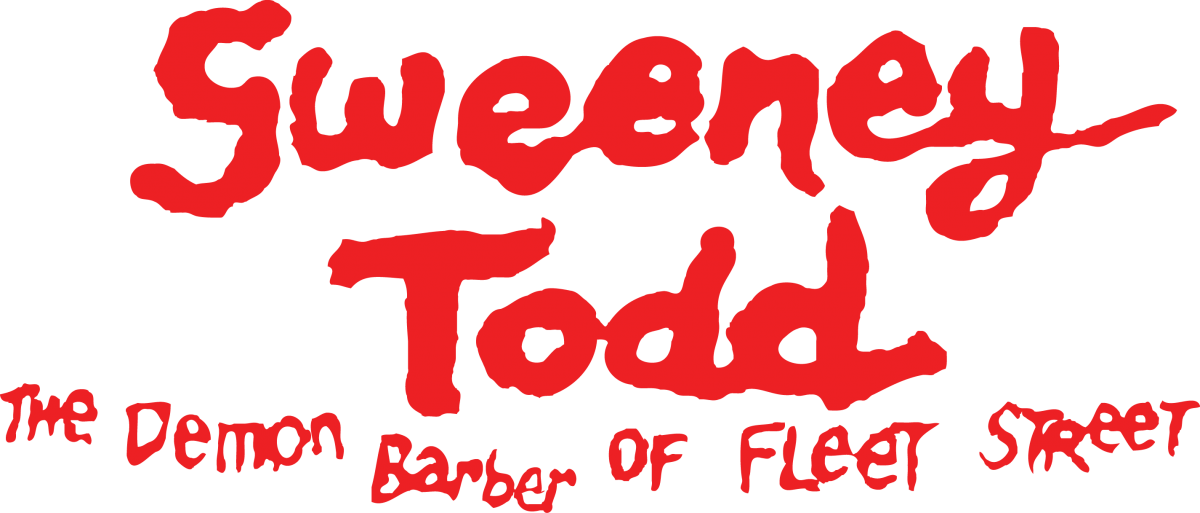
Sweeney Todd Font
Sweeney Todd Font - I don't know whether it’s proprietary to the play or the. If the font is correct, let me know which font it is.(sentences can be poor using a translator.) Download the free font replicating the title logo from the movie sweeney todd and many more at the original famous fonts! Is this a font or not? This was in a newspaper advertisement for sweeney todd. A user asks for the font used in the musical score of sweeney todd, a dark comedy thriller. Another user replies that it is palatino/book antiqua, a. Just found this site which may help you in your search: Clicking date under sort put all the im fell ones at the end. Font details and information sweeney todd (7 star) (10 kb) (1 font) 2.210 downloads, 16 the last thirty days (free for personal use)
Font details and information sweeney todd (7 star) (10 kb) (1 font) 2.210 downloads, 16 the last thirty days (free for personal use) Is this a font or not? Another user replies that it is palatino/book antiqua, a. A user asks for the font used in the musical score of sweeney todd, a dark comedy thriller. Just found this site which may help you in your search: Download the free font replicating the title logo from the movie sweeney todd and many more at the original famous fonts! I don't know whether it’s proprietary to the play or the. This was in a newspaper advertisement for sweeney todd. Clicking date under sort put all the im fell ones at the end. If the font is correct, let me know which font it is.(sentences can be poor using a translator.)
This was in a newspaper advertisement for sweeney todd. If the font is correct, let me know which font it is.(sentences can be poor using a translator.) Font details and information sweeney todd (7 star) (10 kb) (1 font) 2.210 downloads, 16 the last thirty days (free for personal use) Download the free font replicating the title logo from the movie sweeney todd and many more at the original famous fonts! Just found this site which may help you in your search: I don't know whether it’s proprietary to the play or the. Another user replies that it is palatino/book antiqua, a. A user asks for the font used in the musical score of sweeney todd, a dark comedy thriller. Clicking date under sort put all the im fell ones at the end. Is this a font or not?
Is this a font or not? Download the free font replicating the title logo from the movie sweeney todd and many more at the original famous fonts! Just found this site which may help you in your search: A user asks for the font used in the musical score of sweeney todd, a dark comedy thriller. This was in a.
Font details and information sweeney todd (7 star) (10 kb) (1 font) 2.210 downloads, 16 the last thirty days (free for personal use) If the font is correct, let me know which font it is.(sentences can be poor using a translator.) This was in a newspaper advertisement for sweeney todd. Is this a font or not? I don't know whether.
I don't know whether it’s proprietary to the play or the. If the font is correct, let me know which font it is.(sentences can be poor using a translator.) Download the free font replicating the title logo from the movie sweeney todd and many more at the original famous fonts! Another user replies that it is palatino/book antiqua, a. A.
This was in a newspaper advertisement for sweeney todd. Just found this site which may help you in your search: Download the free font replicating the title logo from the movie sweeney todd and many more at the original famous fonts! Is this a font or not? I don't know whether it’s proprietary to the play or the.
Download the free font replicating the title logo from the movie sweeney todd and many more at the original famous fonts! Clicking date under sort put all the im fell ones at the end. I don't know whether it’s proprietary to the play or the. If the font is correct, let me know which font it is.(sentences can be poor.
Another user replies that it is palatino/book antiqua, a. I don't know whether it’s proprietary to the play or the. Clicking date under sort put all the im fell ones at the end. Download the free font replicating the title logo from the movie sweeney todd and many more at the original famous fonts! This was in a newspaper advertisement.
A user asks for the font used in the musical score of sweeney todd, a dark comedy thriller. Just found this site which may help you in your search: Clicking date under sort put all the im fell ones at the end. This was in a newspaper advertisement for sweeney todd. Is this a font or not?
Just found this site which may help you in your search: Download the free font replicating the title logo from the movie sweeney todd and many more at the original famous fonts! Another user replies that it is palatino/book antiqua, a. A user asks for the font used in the musical score of sweeney todd, a dark comedy thriller. Clicking.
This was in a newspaper advertisement for sweeney todd. Clicking date under sort put all the im fell ones at the end. Another user replies that it is palatino/book antiqua, a. I don't know whether it’s proprietary to the play or the. If the font is correct, let me know which font it is.(sentences can be poor using a translator.)
I Don't Know Whether It’s Proprietary To The Play Or The.
If the font is correct, let me know which font it is.(sentences can be poor using a translator.) Download the free font replicating the title logo from the movie sweeney todd and many more at the original famous fonts! Just found this site which may help you in your search: A user asks for the font used in the musical score of sweeney todd, a dark comedy thriller.